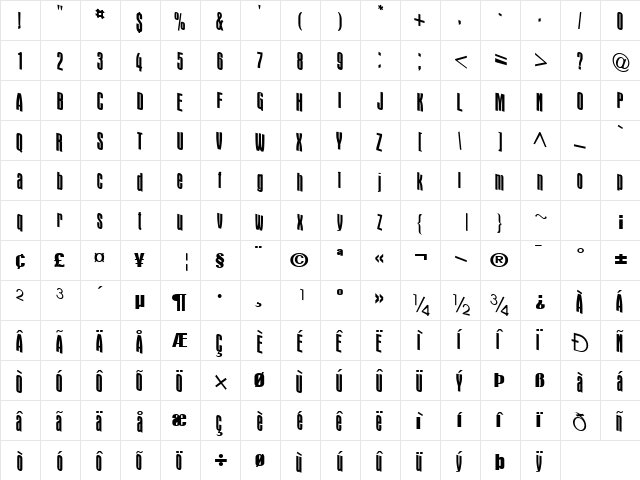
DamselWalkFont71 Regular
Design Context for DamselWalkFont71 Typeface
DamselWalkFont71 takes a measured approach to typography — its balanced proportions and neutral character make it a reliable workhorse for both digital and print work.
Pro Tip: Use DamselWalkFont71 in both headline and body roles to test its range before committing to a single application.